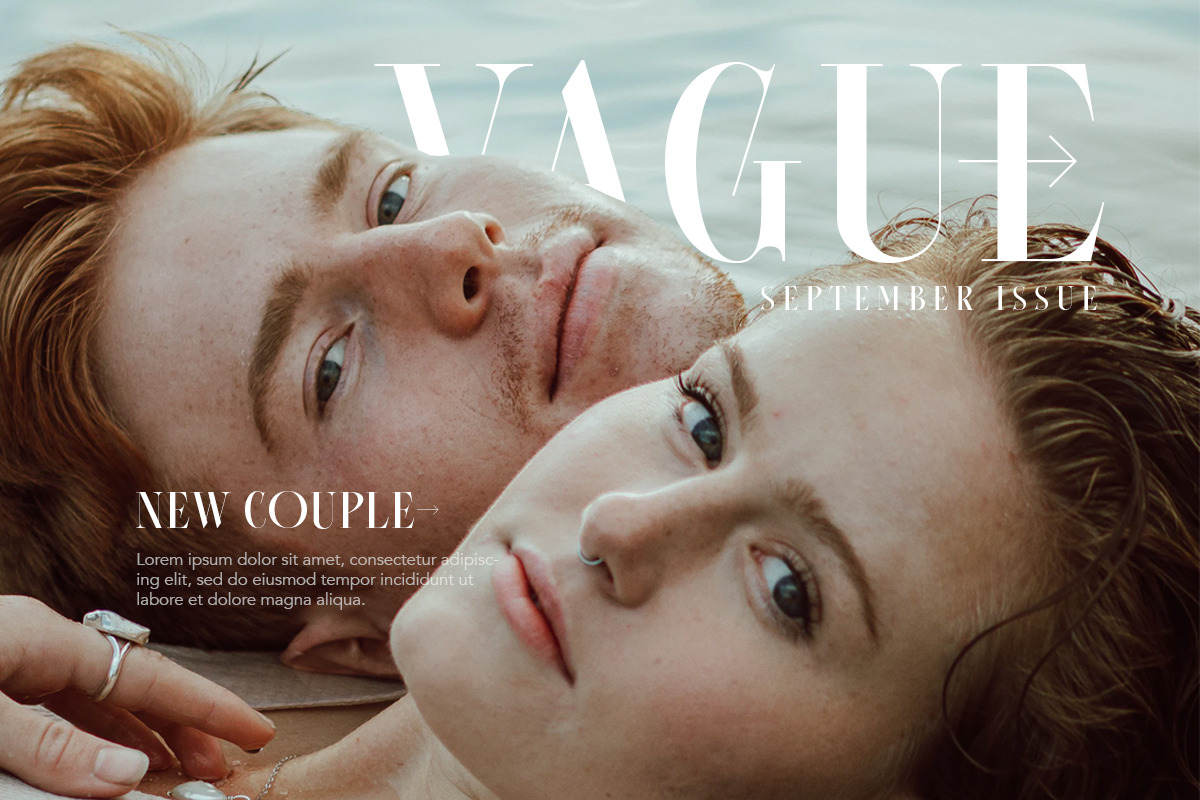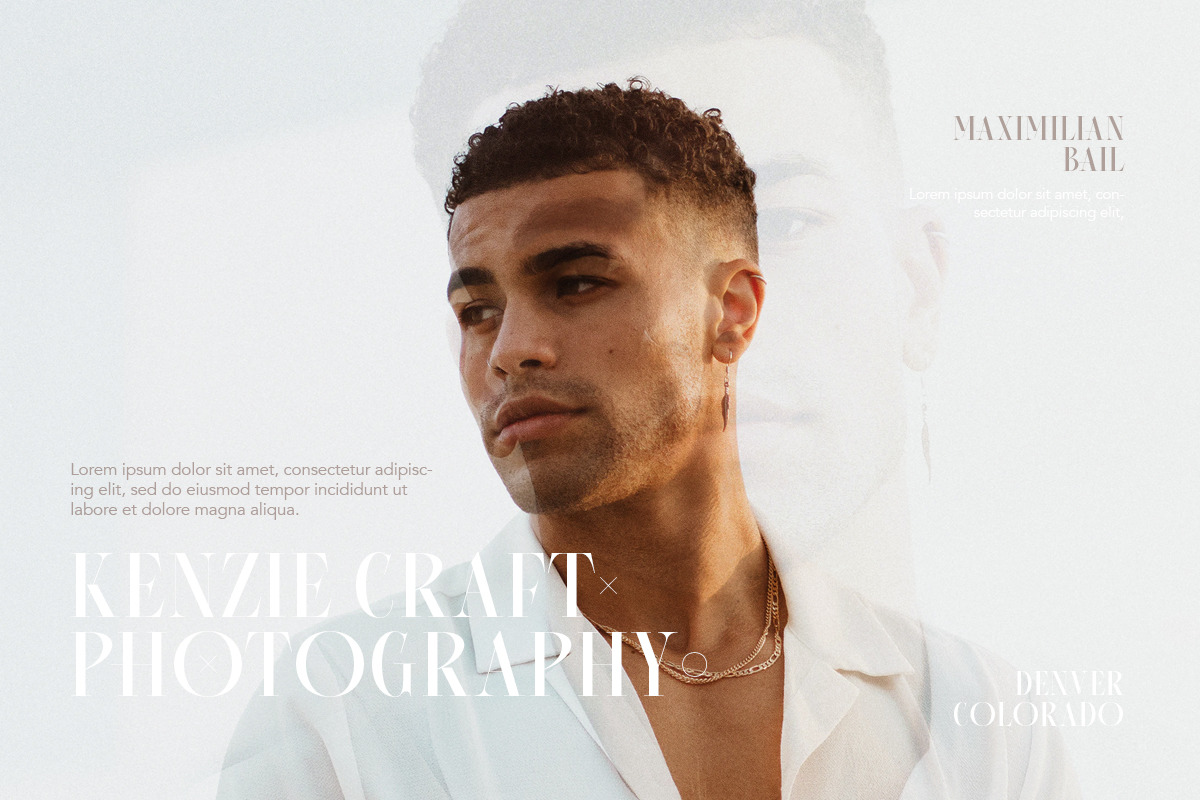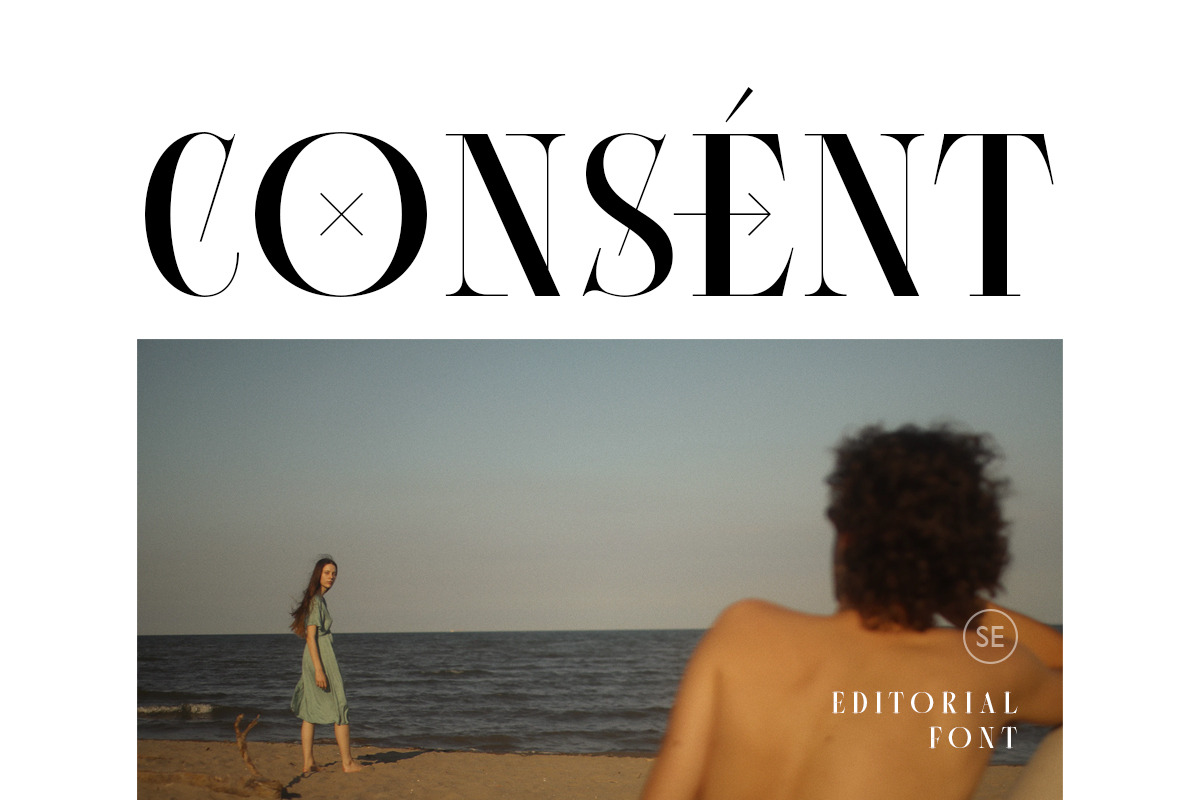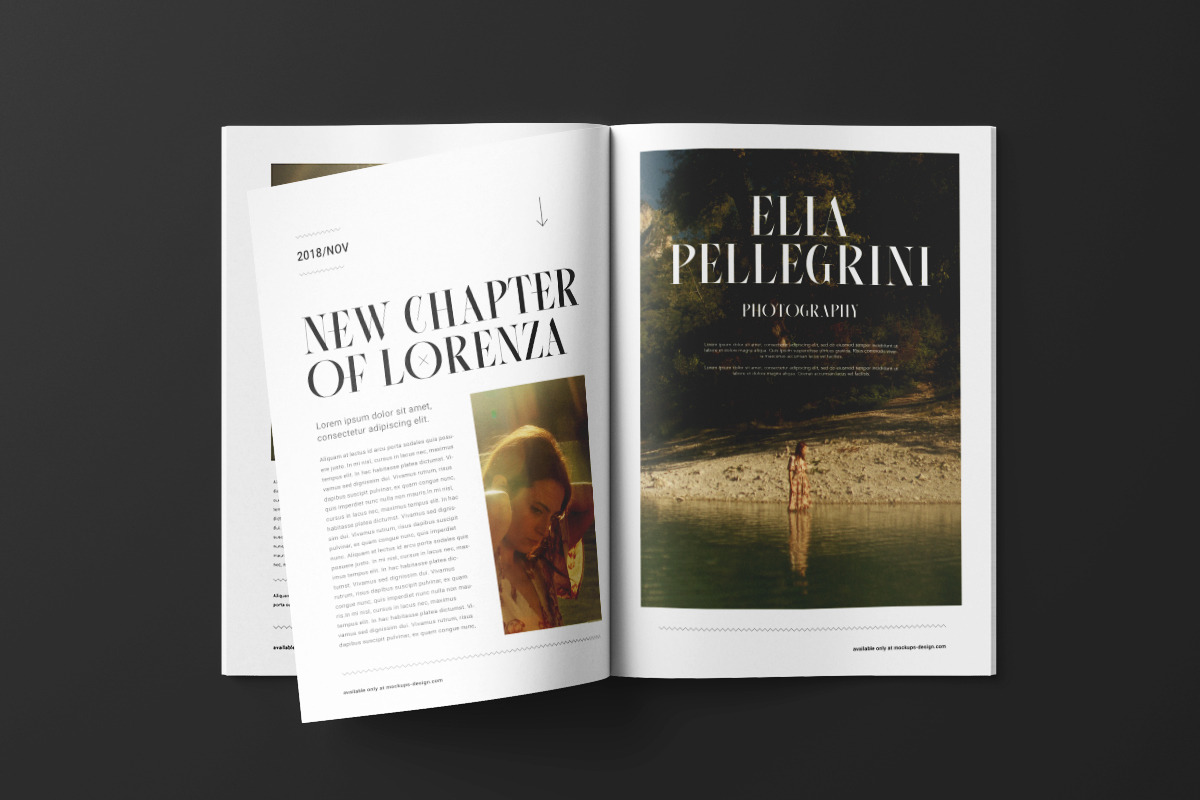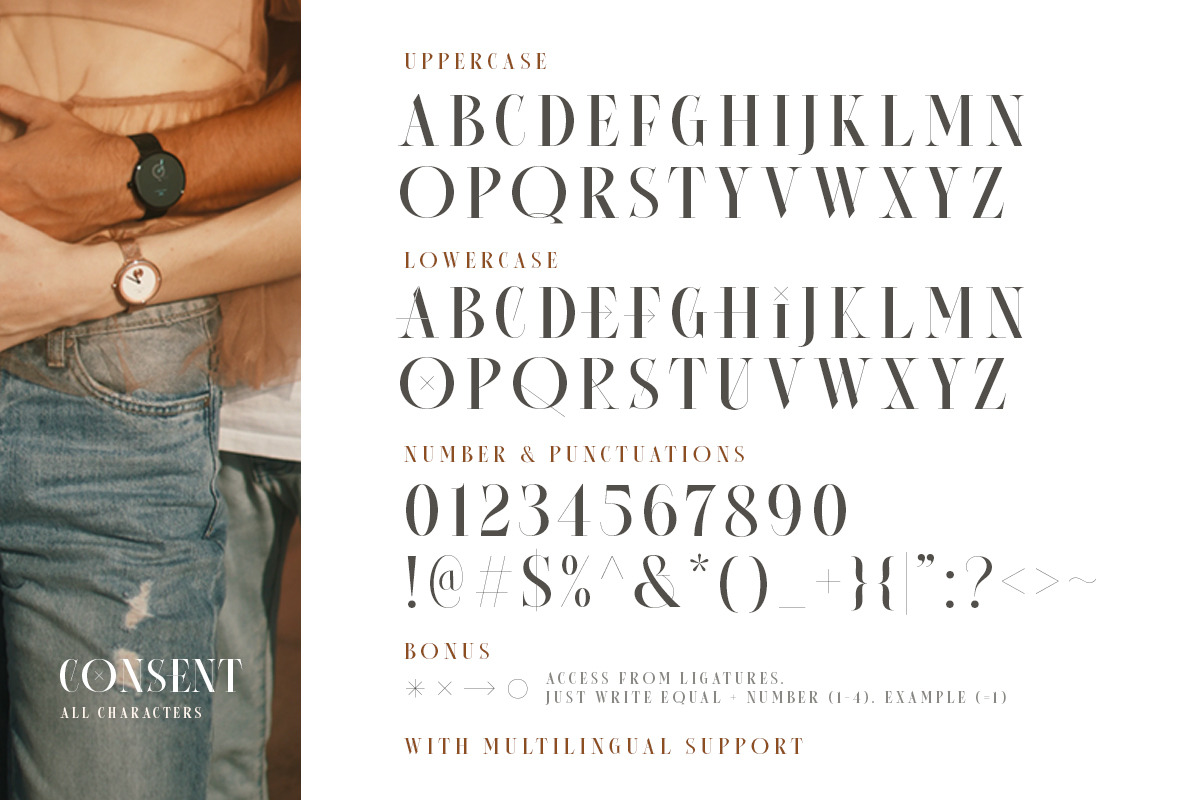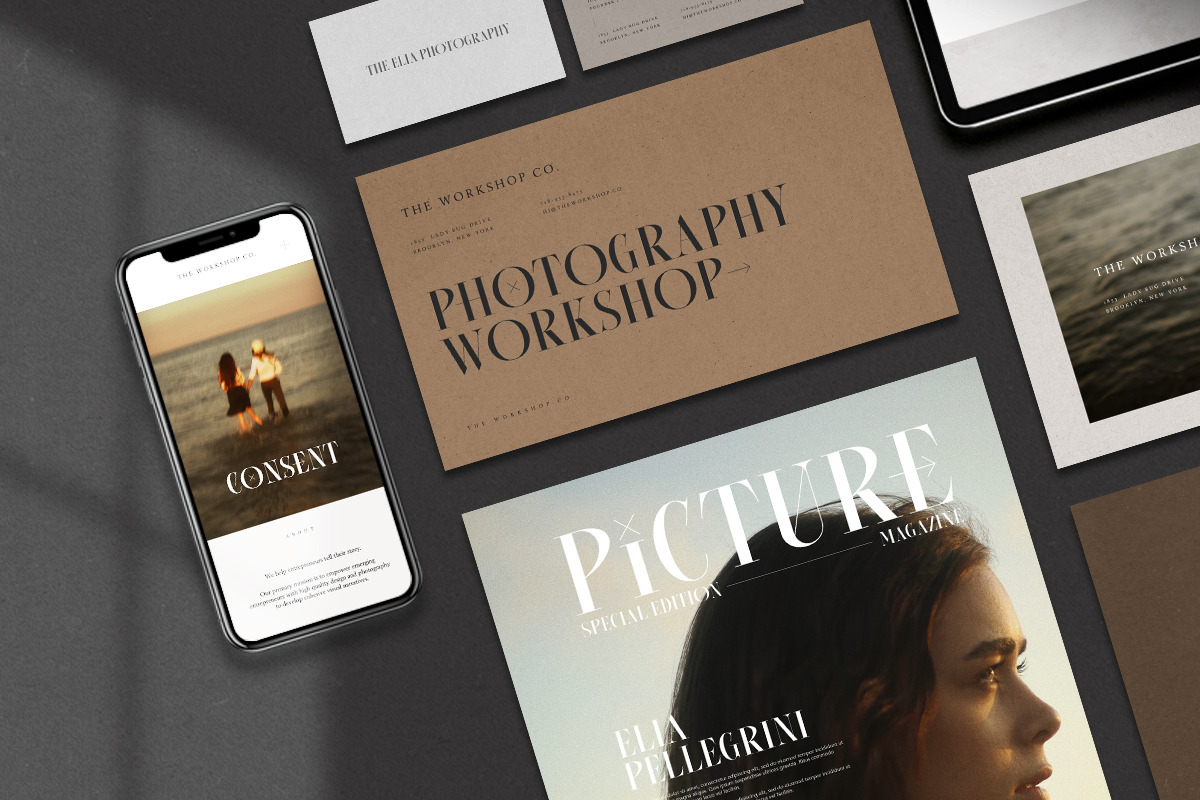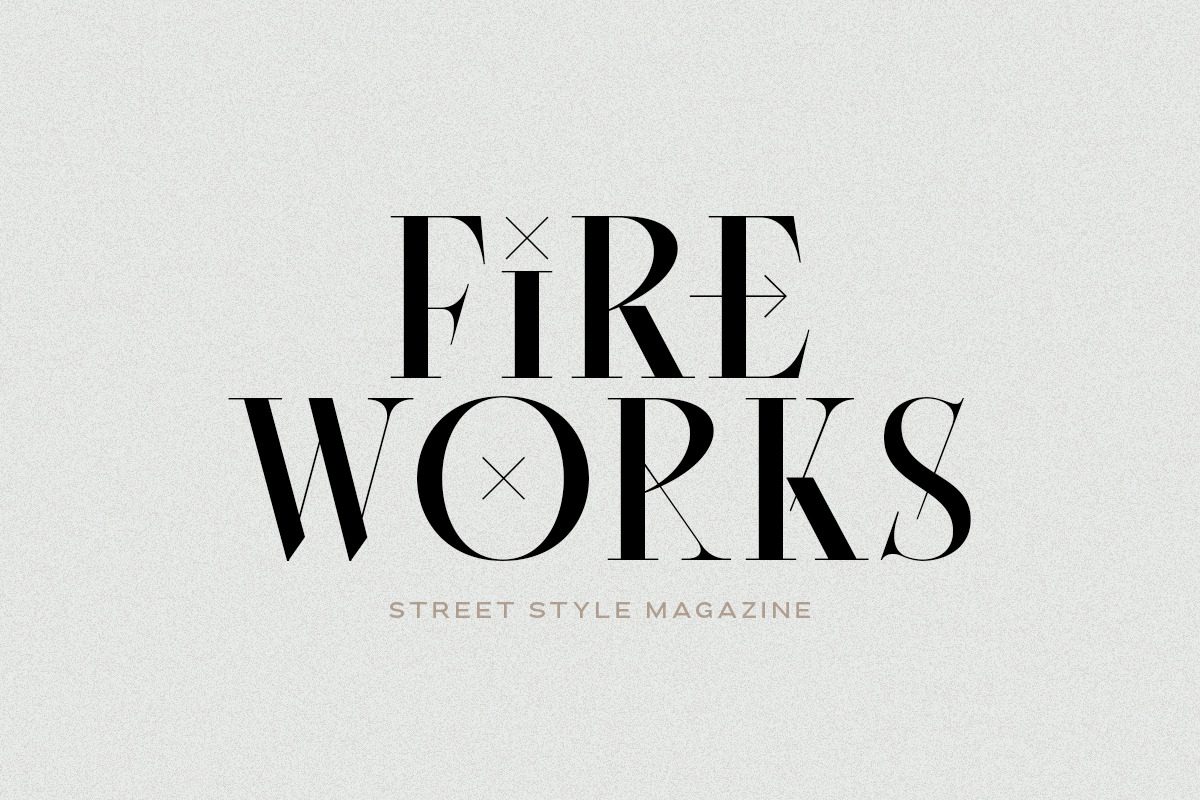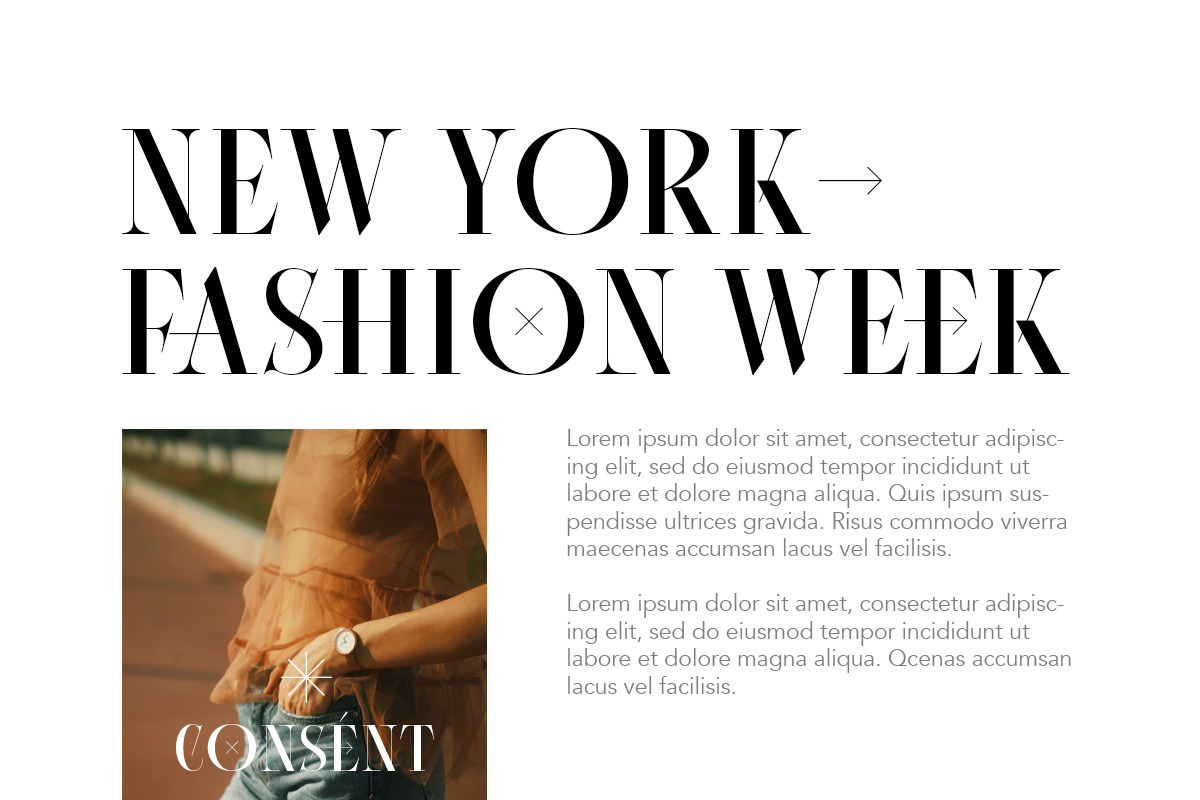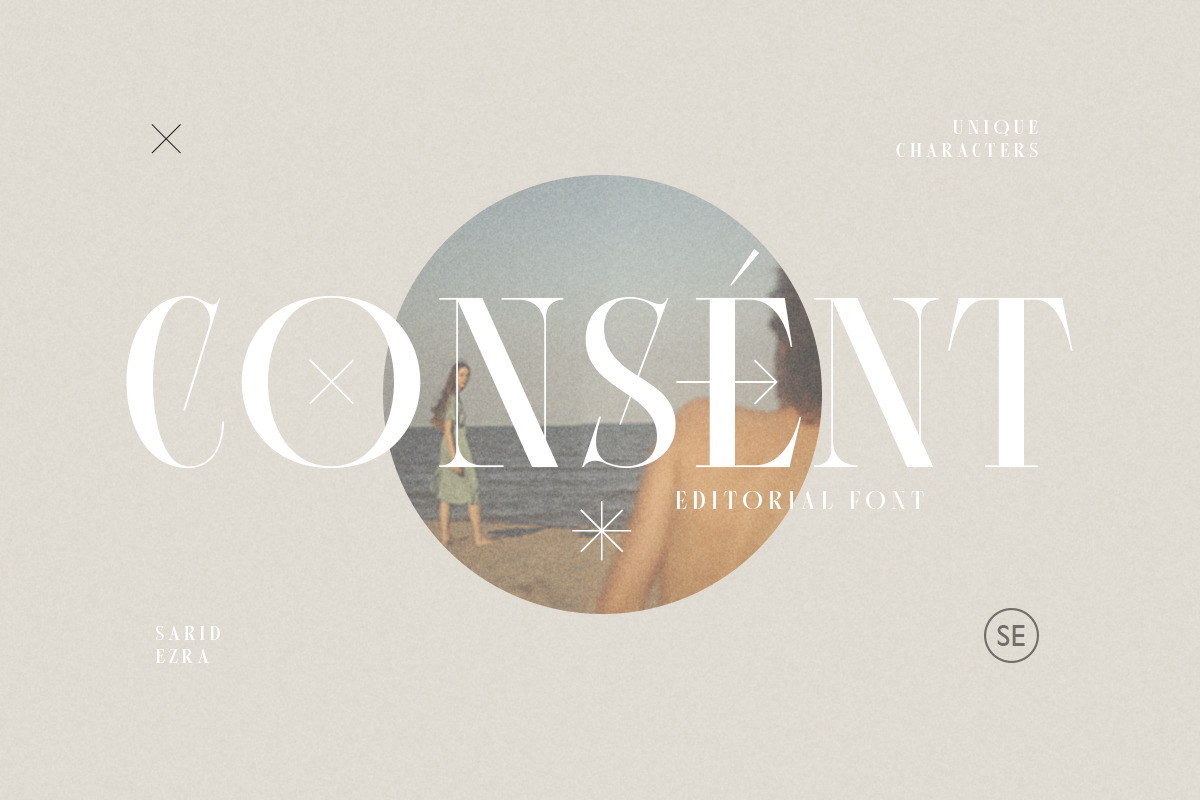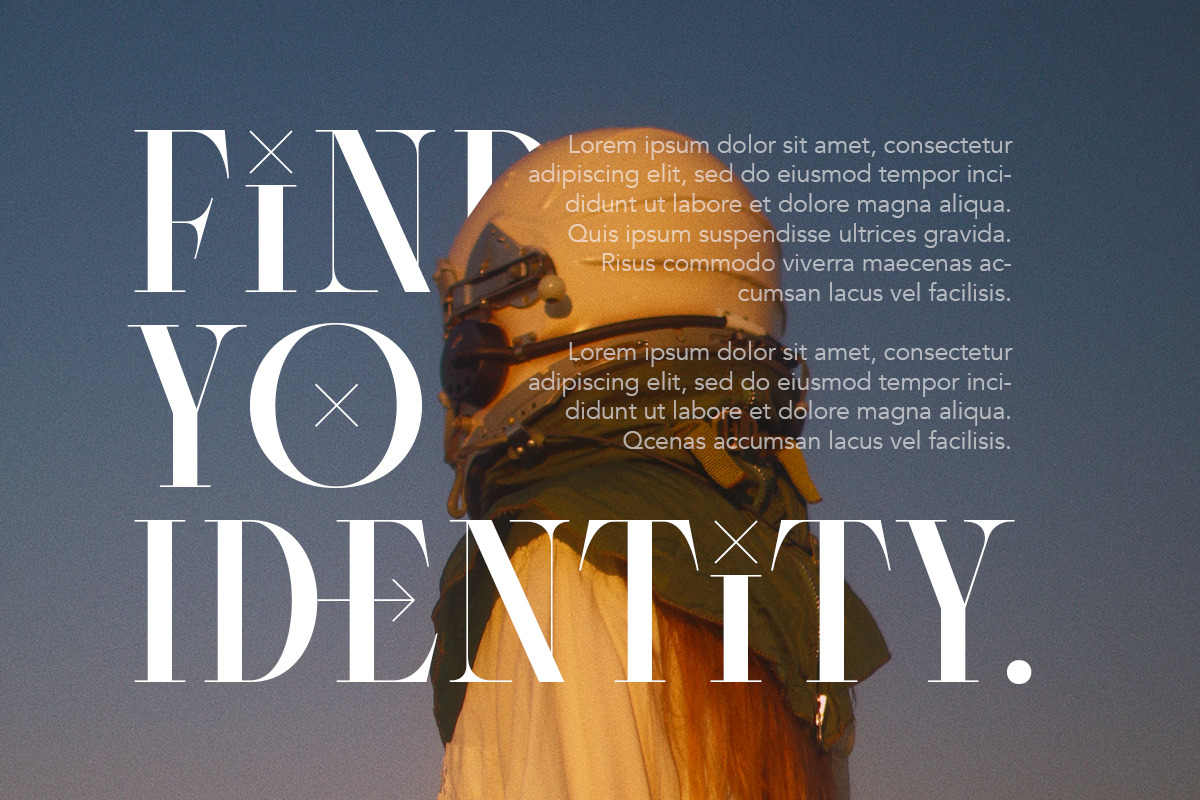
Consent - Editorial Serif Font
Introducing, Consent - An editorial serif with unique features!
Consent is an editorial serif font with unique lowercase. With special features, Consent will make your project more stand out and elegant. This font suitable for brand or title of the magazine. You also can use this font for logo, branding, and also versatile for any project! No need a complicated step for using the features. Just type in lowercase, uppercase, or both!
You can also access the additional features from opentype ligatures. Just type equal + number (1-4) for the magic. Example =3. Try it in the type sample below!